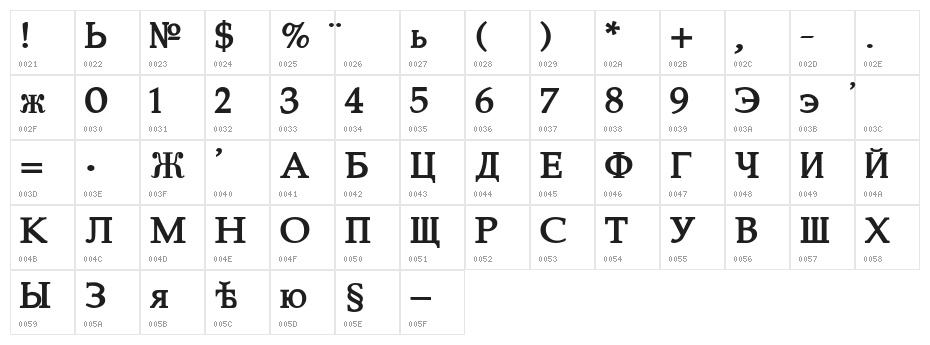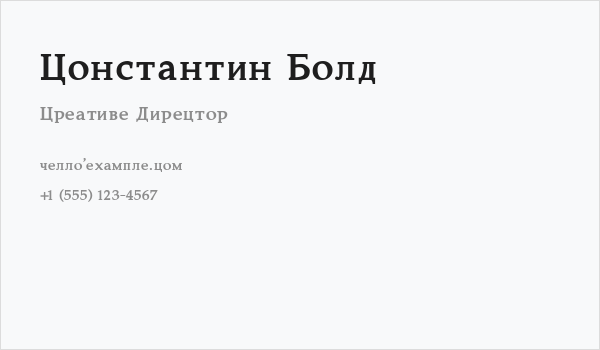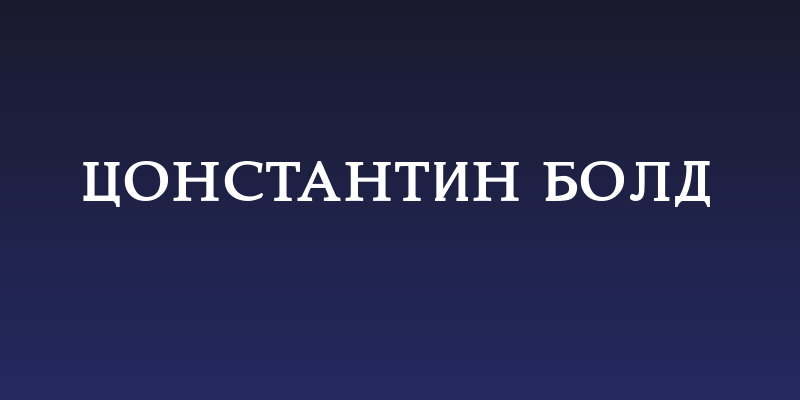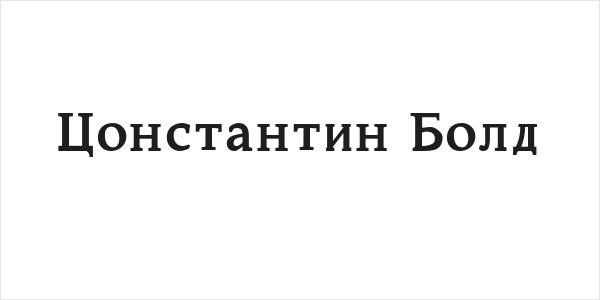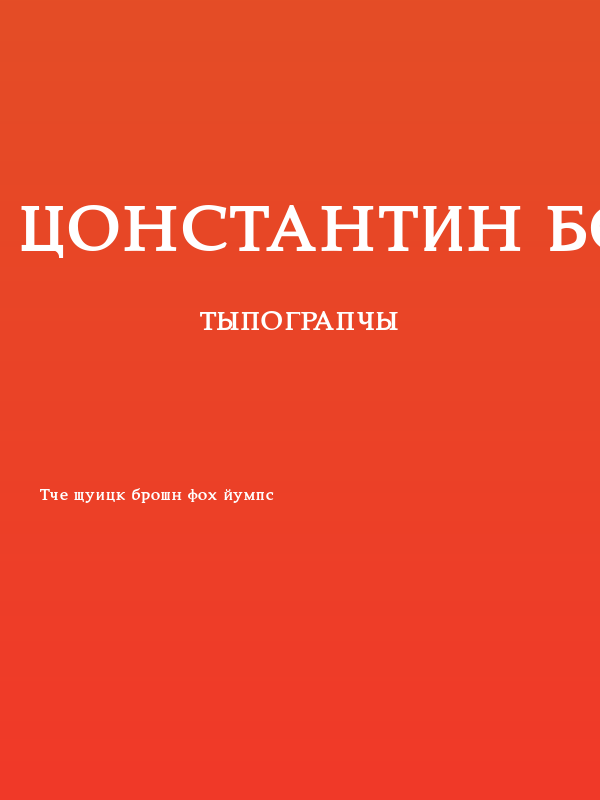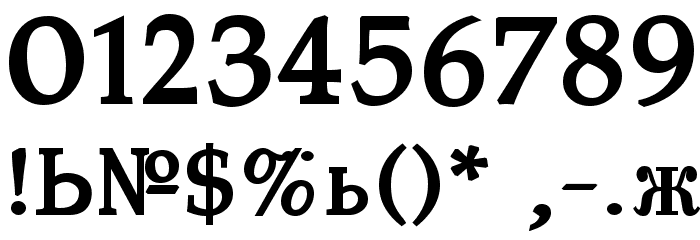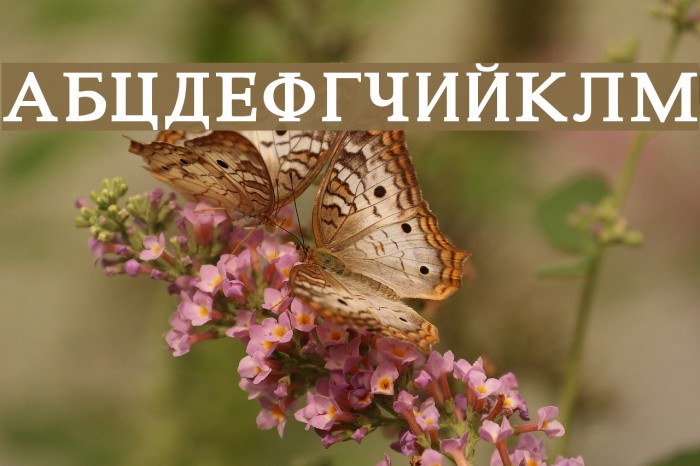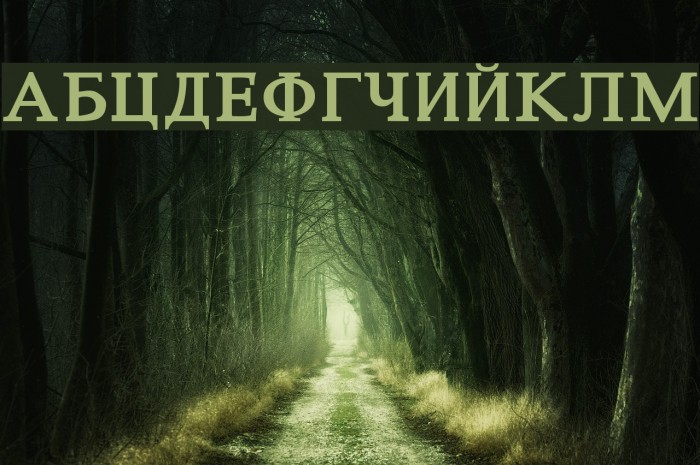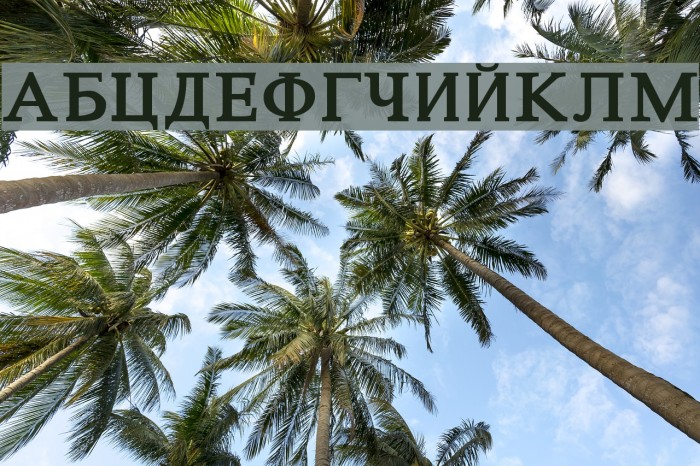
Constantin Bold Font
Constantin Bold Description
This font features a bold and commanding presence with its strong, thick strokes and pronounced serifs. The characters are well-defined, offering a sense of authority and clarity. The uppercase letters are particularly striking, with a robust structure that ensures readability even at smaller sizes. The lowercase letters maintain a consistent style, complementing the uppercase with a slightly more compact form. Numerals are clear and balanced, making them suitable for both display and text purposes. Special characters are thoughtfully designed, maintaining the overall aesthetic of the font. This font is ideal for projects that require a bold statement, such as headlines, posters, and branding materials.